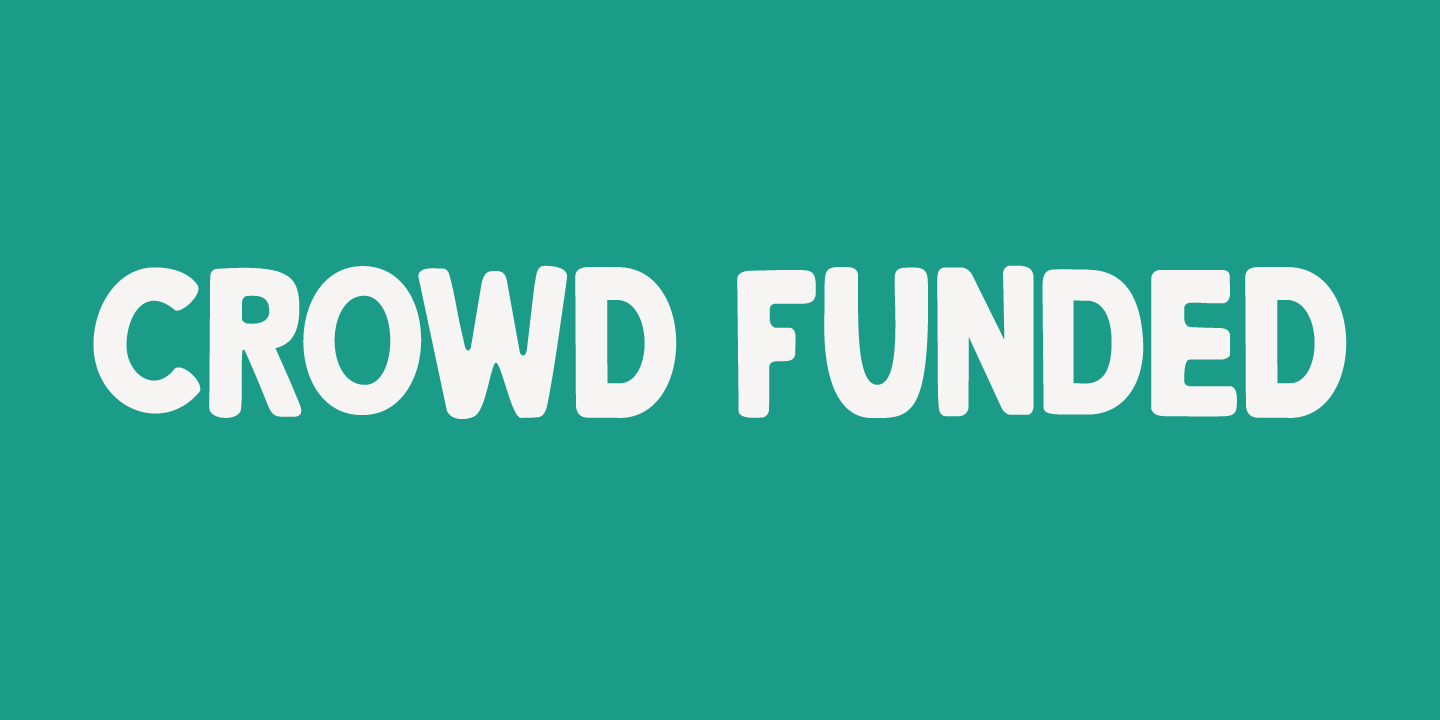
Crowd Funded Font is an exceptional choice for projects that aim to convey a sense of community, collaboration, and modern, innovative spirit. It's perfectly suited for startup branding, online campaign promotions, social enterprise websites, collaborative projects, and any application where you want to evoke a feeling of collective effort and shared success. Imagine it gracing the landing page of a new crowdfunding platform, adding a friendly yet professional touch to a community-driven initiative, or giving a distinctive voice to a project built by many. Its approachable yet clean design ensures your message is conveyed with both warmth and an undeniable sense of forward momentum.
What makes Crowd Funded Font so exciting is its inherent connection to the contemporary spirit of collective action and digital collaboration. It embodies the idea that great things can be achieved when people come together, making it ideal for designs that aim to inspire participation and foster a sense of belonging. This font isn't just about conveying text; it’s about telling a story of shared vision and collective power, adding a layer of optimism and connectivity to your visuals. It's the ideal tool for designers looking to infuse their work with a unique, community-oriented spirit and a strong, positive appeal.
The Crowd Funded Font family typically offers a range of weights and styles to provide comprehensive design flexibility, reflecting its versatile and adaptive nature. You might find a standard Regular weight that embodies its core collaborative design, along with potential variations such as a Light for subtle appeal or a Bold for pronounced impact and emphasis. These different styles allow for creating clear visual hierarchies, ensuring that whether you need to rally support for a cause or present the results of a shared endeavor, the Crowd Funded Font Free Download provides the foundational versatility to achieve a cohesive and impactful design across all your platforms.